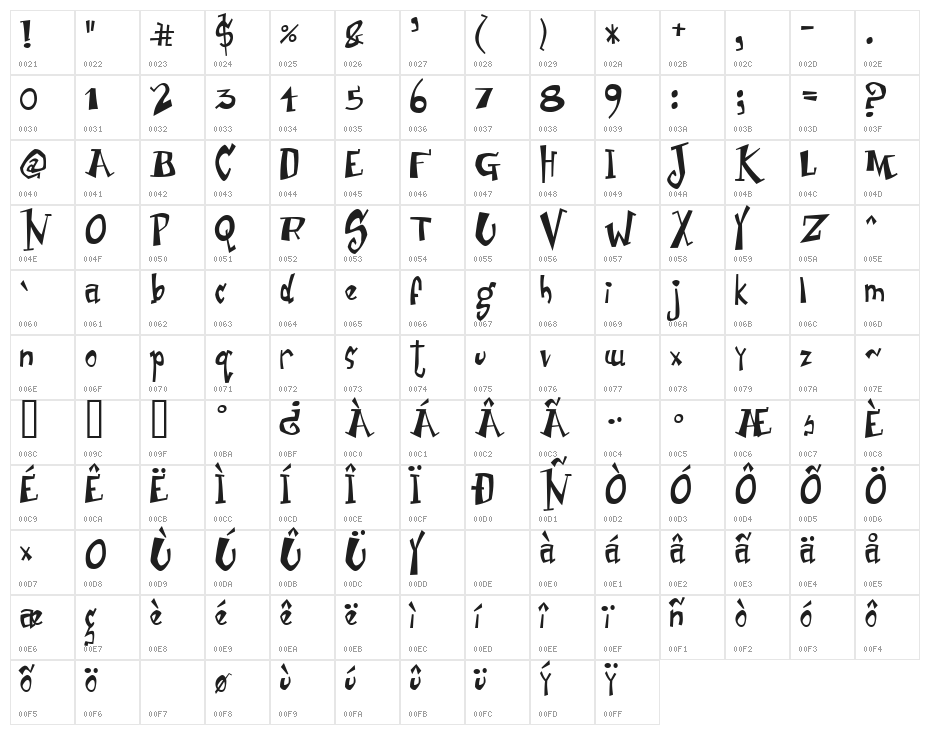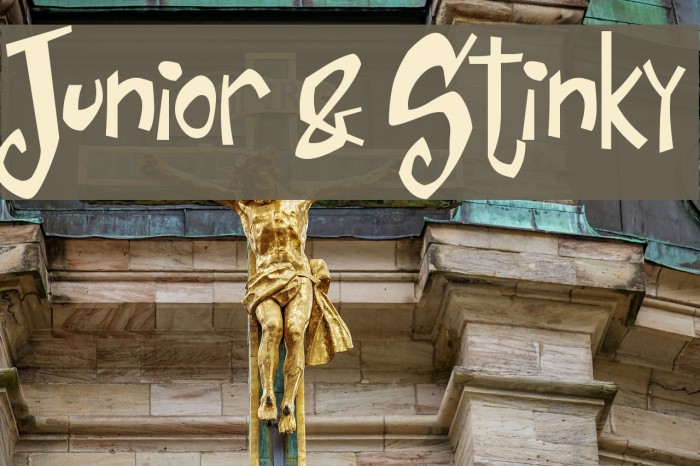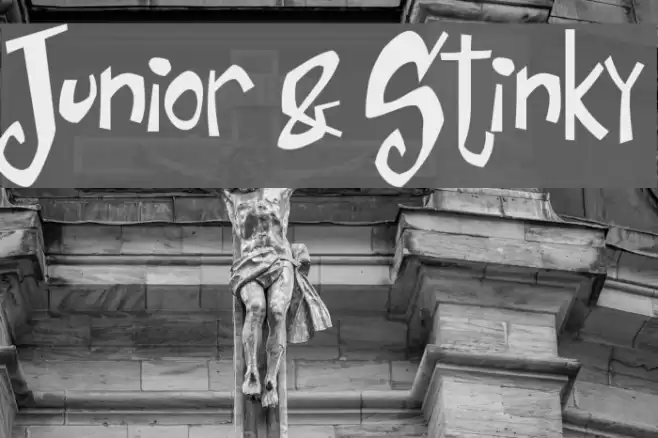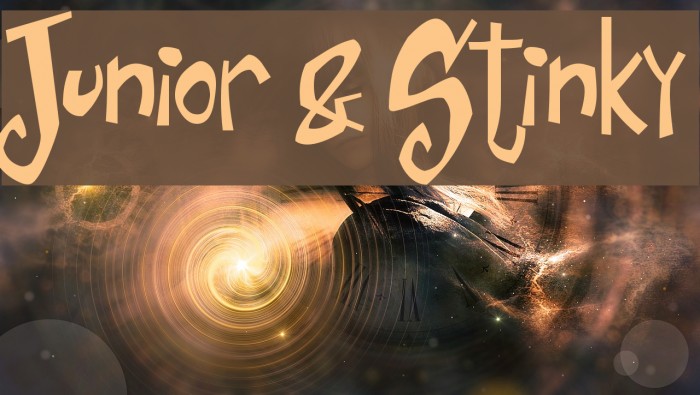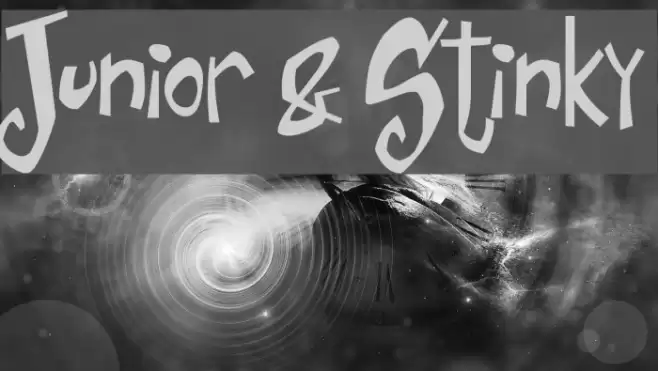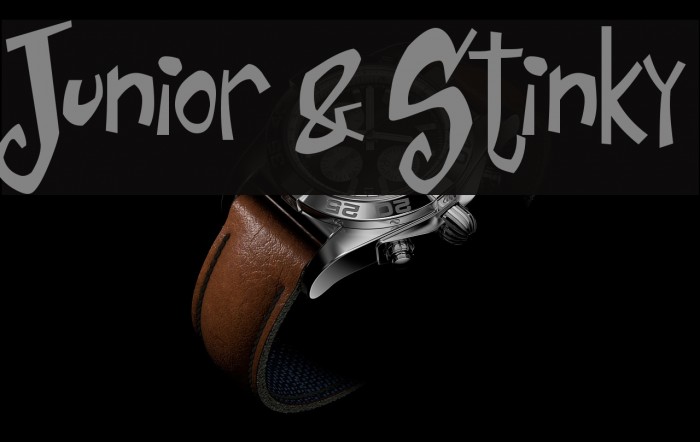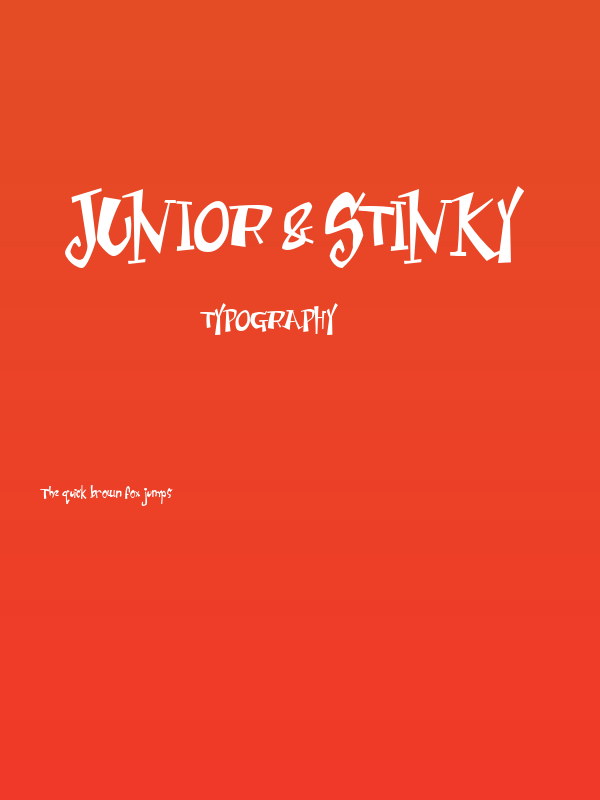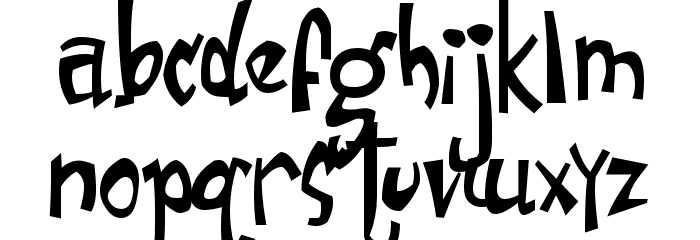
Junior & Stinky Font
Junior & Stinky Description
This font features a playful and quirky design, characterized by its irregular and exaggerated letterforms. The uppercase letters are bold and dynamic, with varying stroke widths and unexpected angles, giving a sense of movement and energy. The lowercase letters maintain this whimsical style, with some characters having unique flourishes and curves. Numbers and special characters follow the same playful aesthetic, making the font suitable for creative and informal applications. The overall appearance is bold and eye-catching, perfect for projects that require a fun and distinctive look.
| Proposed Projects | Ideal for children's books, comic strips, playful branding, and creative posters. |